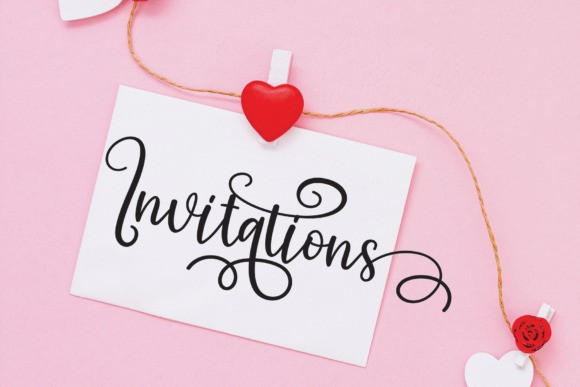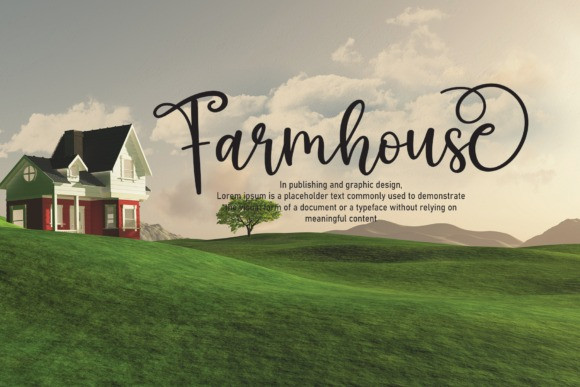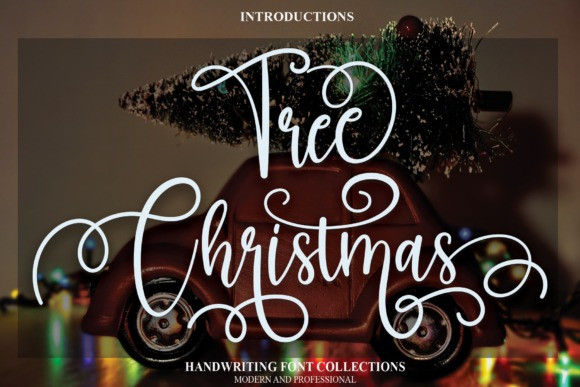
Tree Christmas Font
Tree Christmas Font is an elegant and sophisticated handwritten font. Its classy letters are suitable for wall displays, wedding invitations, social media post logos, advertisements, product packaging, product designs, labels, photography, watermarks, invitations, stationery, and any project that requires a handwritten taste.